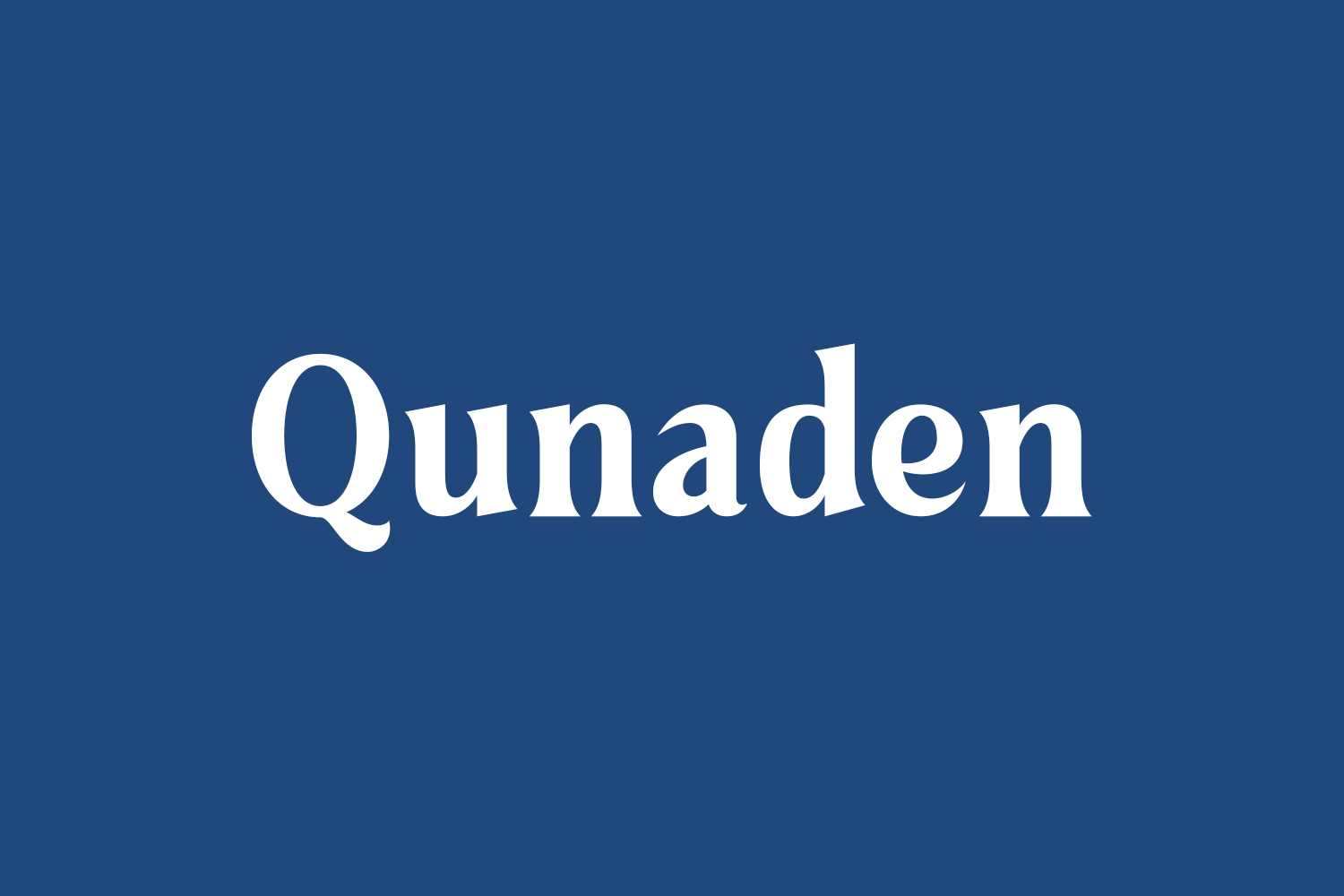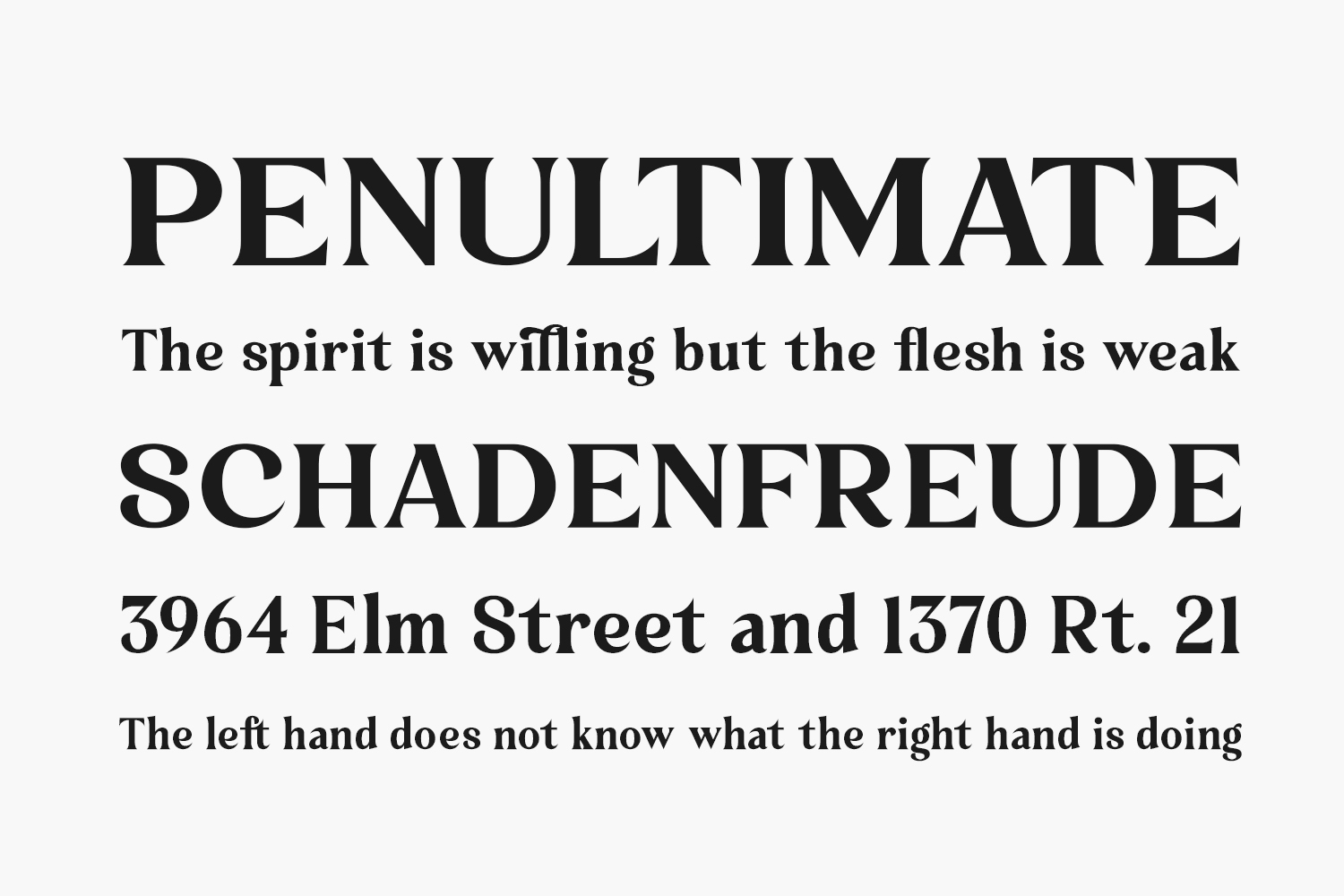
Discover Qunaden Free Font, a sleek display typeface tailored for modern design needs. Ideal for crafting elegant and luxurious logos, book or movie titles, fashion brands, magazines, clothing, lettering, quotes, and beyond. Elevate your projects with its versatile style. Download the font for free if you need it for personal use or purchase the full version for commercial use.